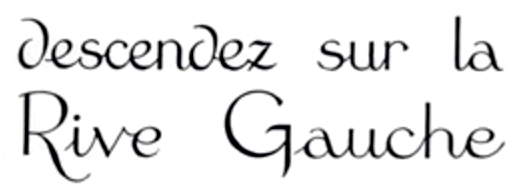
Art Deco Font similar to Bifur used in vintage Hotel poster
I am trying to identify the display font used for the words PARIS and LUTETIA on this old poster: https://hprints.com/en/item/26433/?u=1,1
It reminds me of Cassandre's Bifur, but there's some clear differences. Can anyone help or suggest good alternatives (other than Bifur)? Thanks.
I think I managed to ascertain that this is a custom design for the poster after all, and its closest reference is probably Bifur.
But could I still ask for a little help in identifying the secondary 'scripty' font shown below, or to have a close match, please? Thank you!